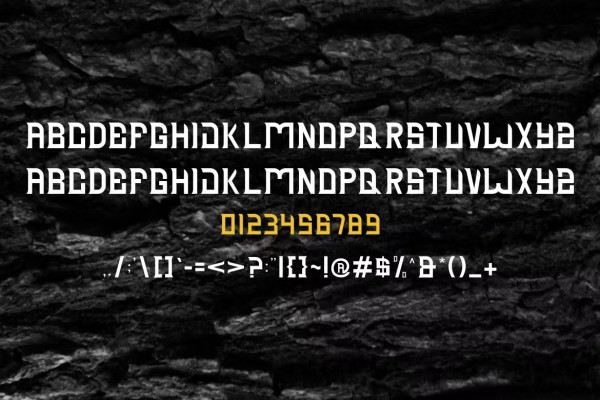
Recad Font
Recad Font is a modern and simple font best used as a display for titles, logos, brands, magazines, product packaging, and invitations. Recads feature clean lines and soft curves that give any project an extra touch of class.